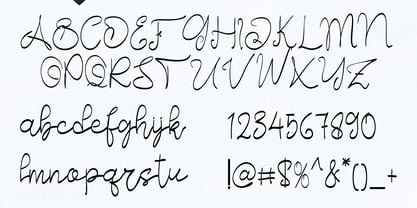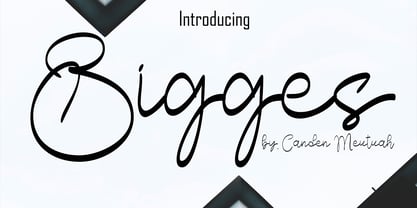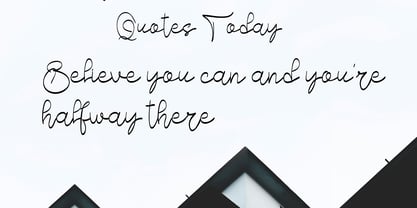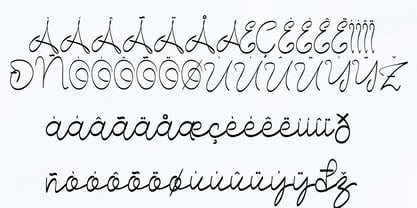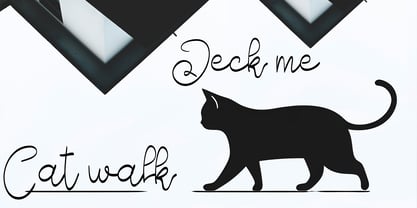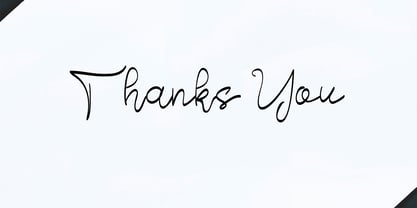
Bigges
by Canden Meutuah
The Bigges Font Family was designed by Canden Meutuah and published by Canden Meutuah. Bigges contains 1 styles. More about this family
Bigges is a beautiful and eye-catching font designed with a soft, unique touch. Its distinctive strokes give it a special character, making it meaningful and versatile for future use. With various characters, it’s perfect for design projects, crafts, and other creative works.